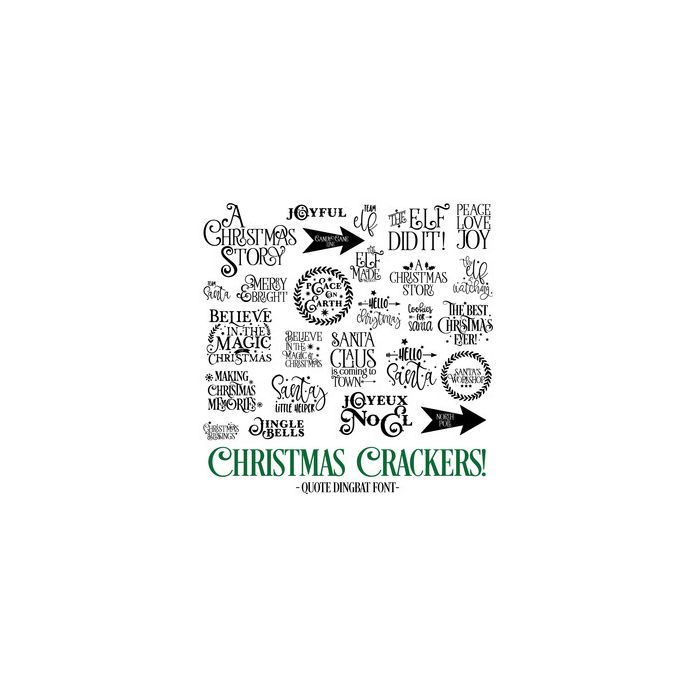
Christmas Crackers Dingbat Font. Includes 26 beautiful Christmas words, elements and quotes, perfect for holiday projects, planners, wall art, word art, vinyl, scrapbooking, gifts and more!. All are assigned to an upper case letter starting with 'A' or can be accessed via glyphs. For more design ideas, coordinating designs & products and inspiration, please visit my blog http://www.sarahhurleyblog.com